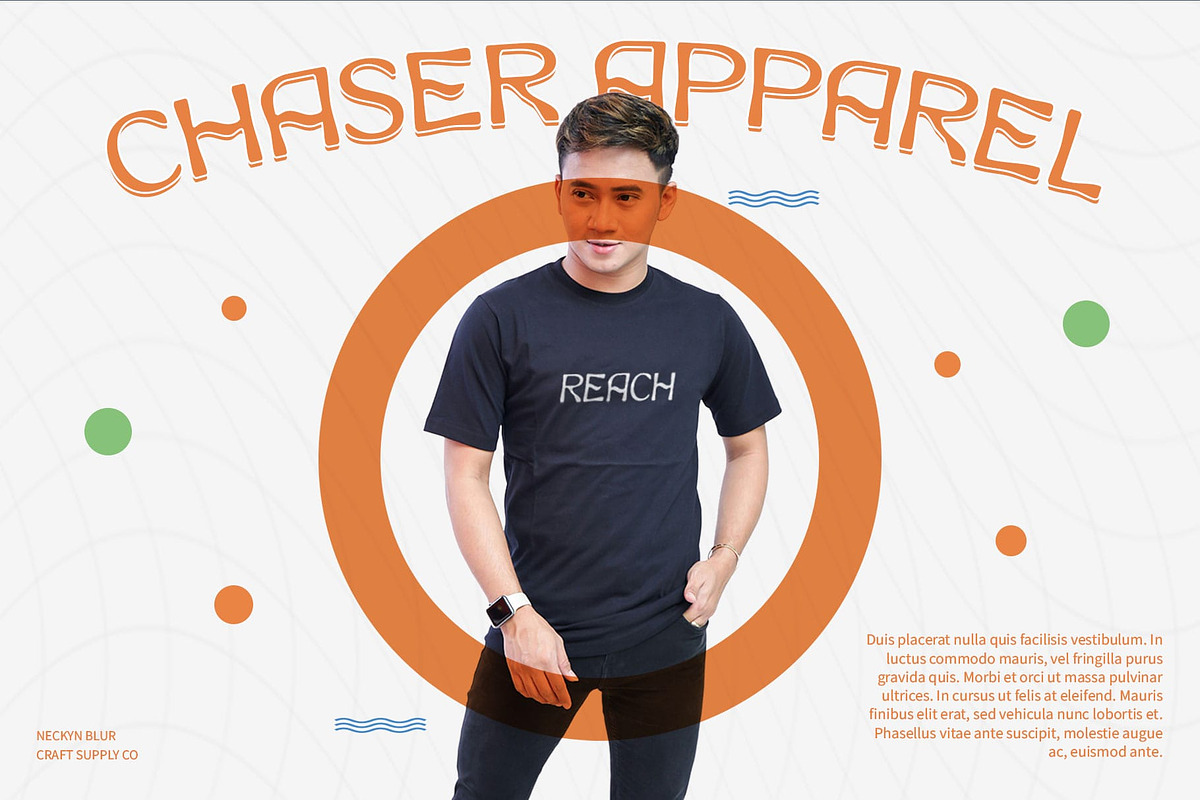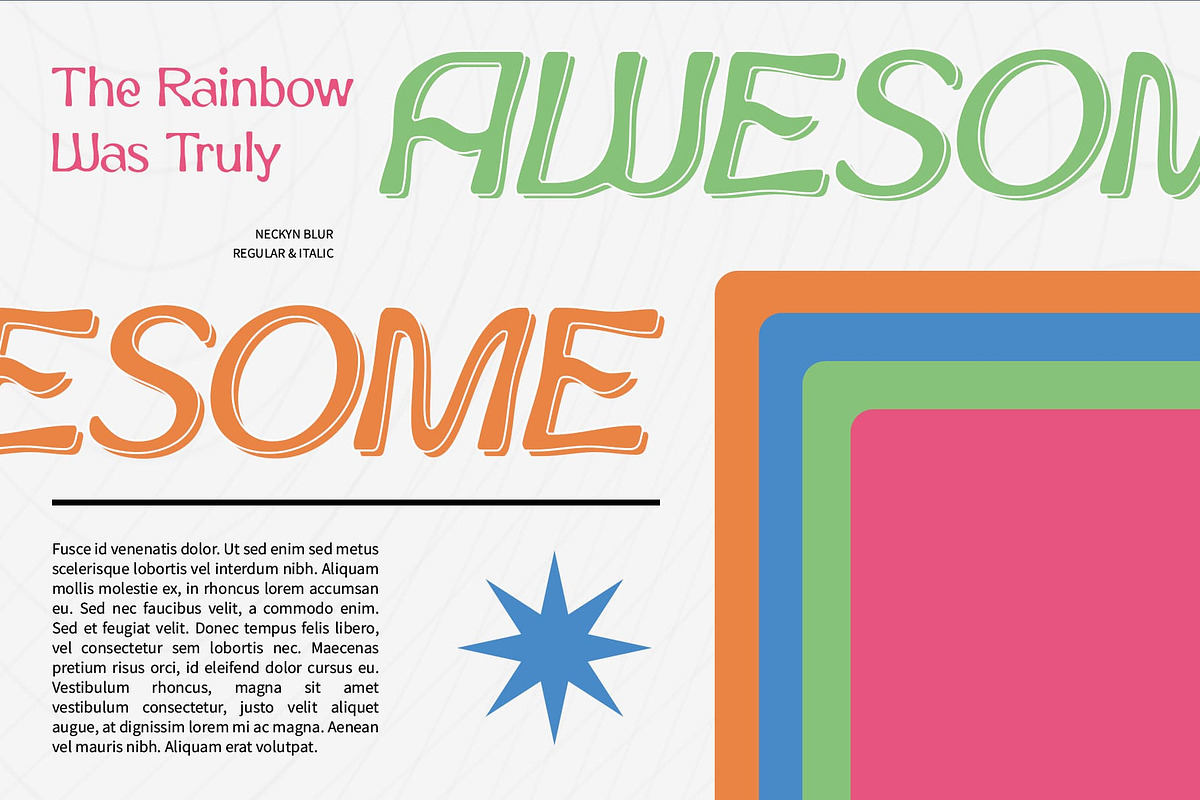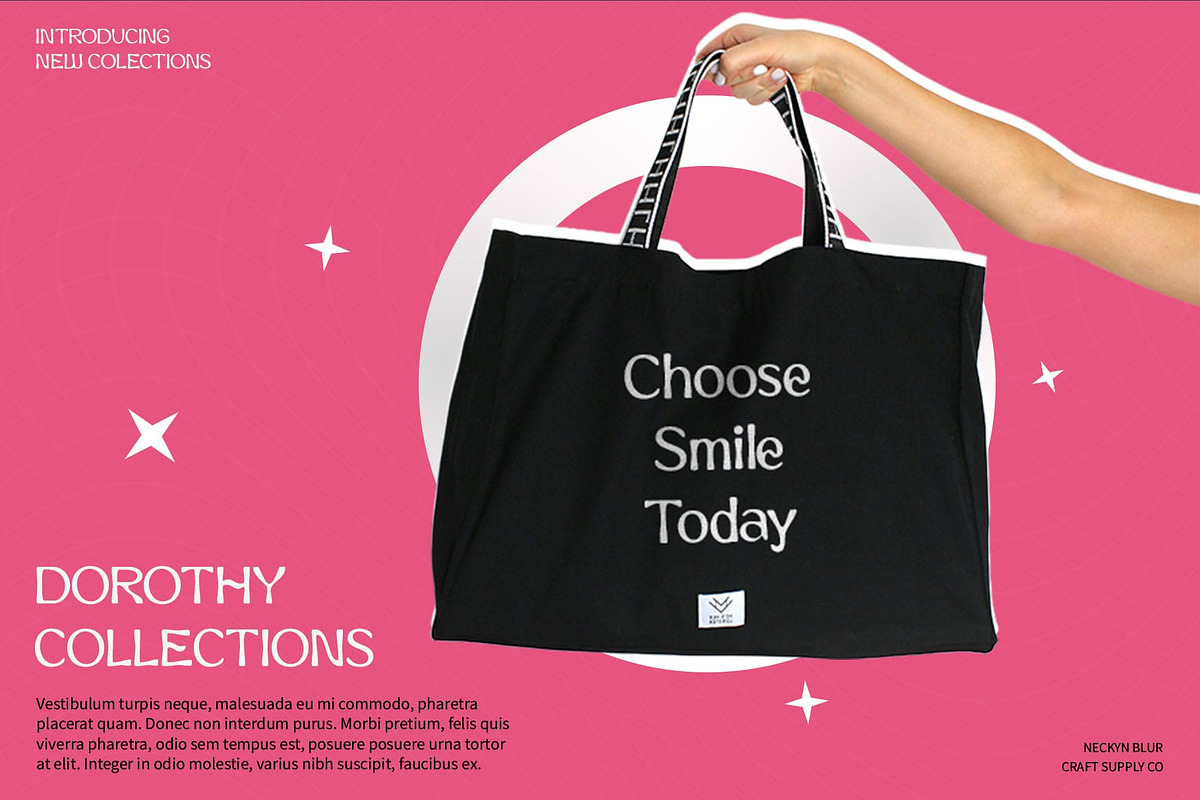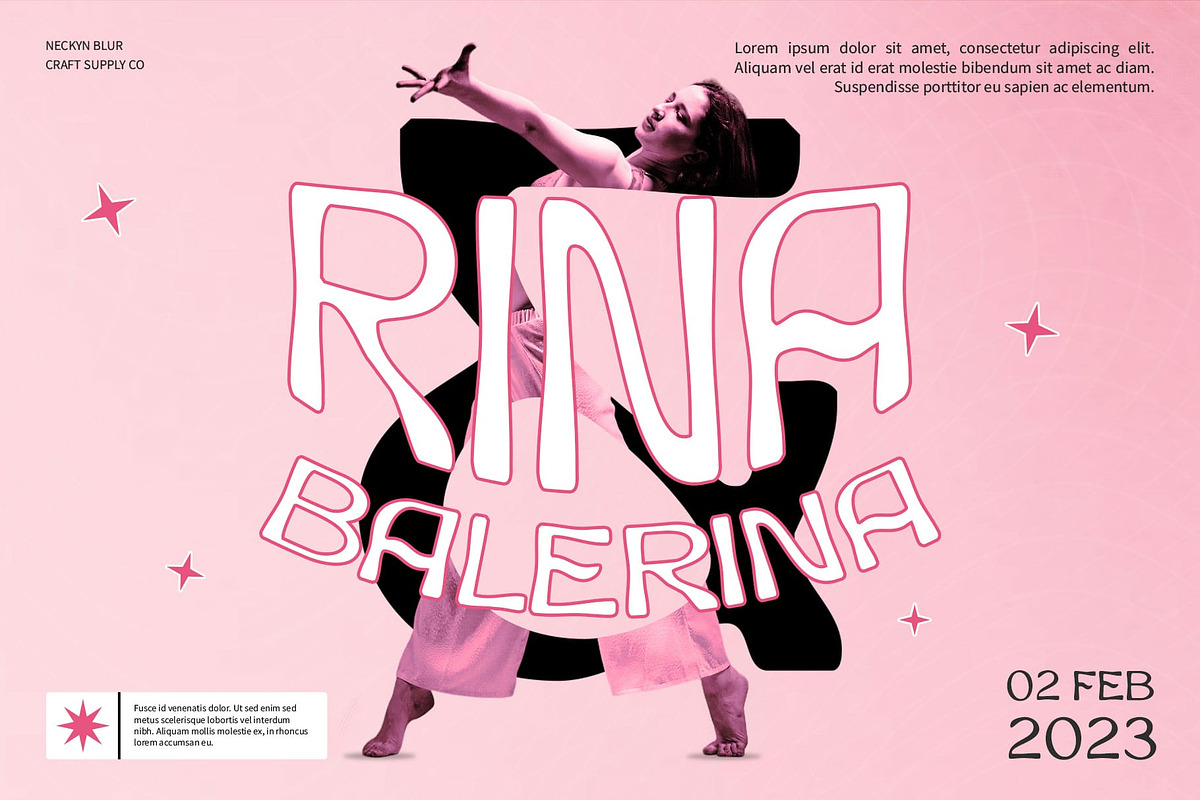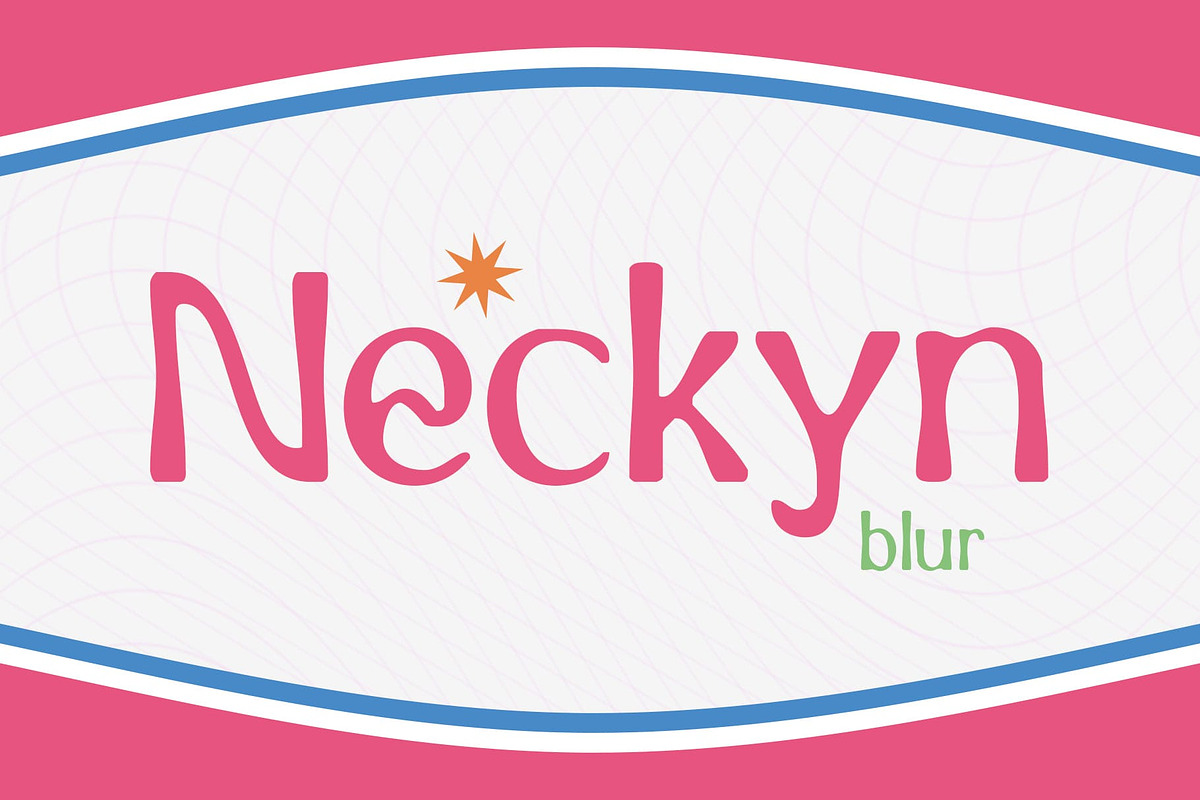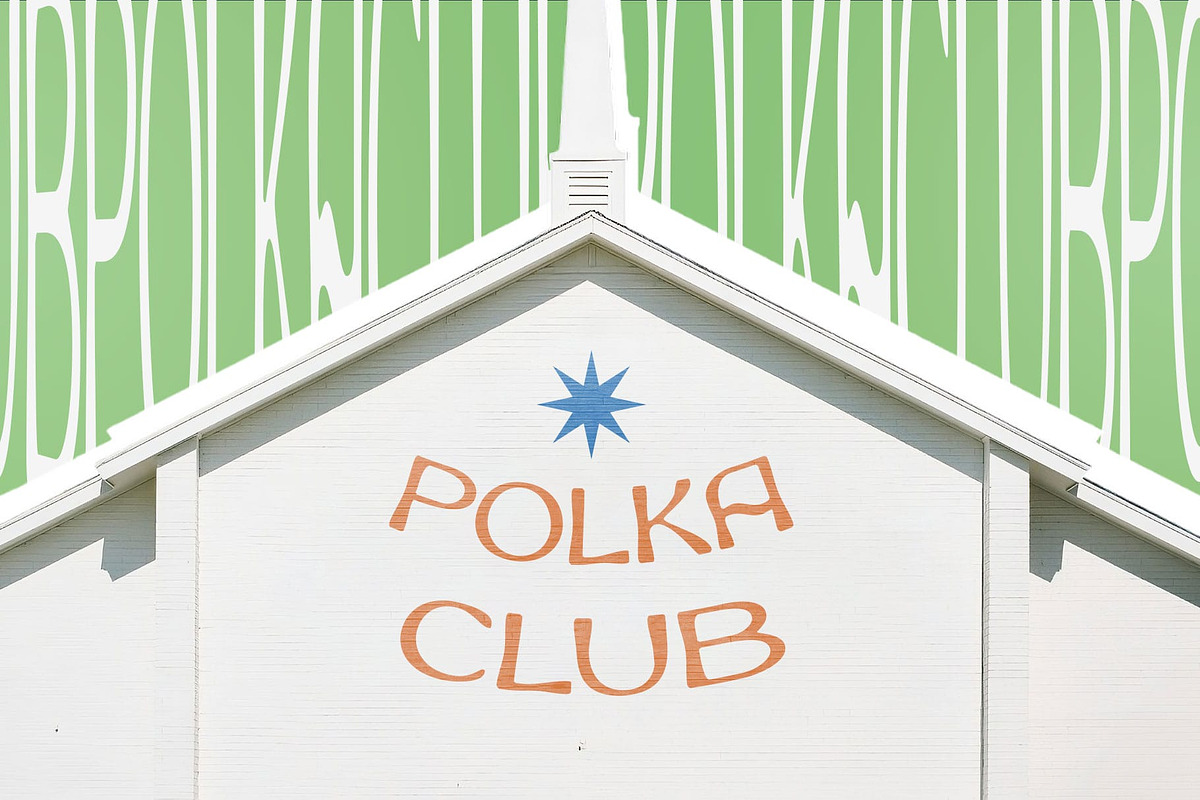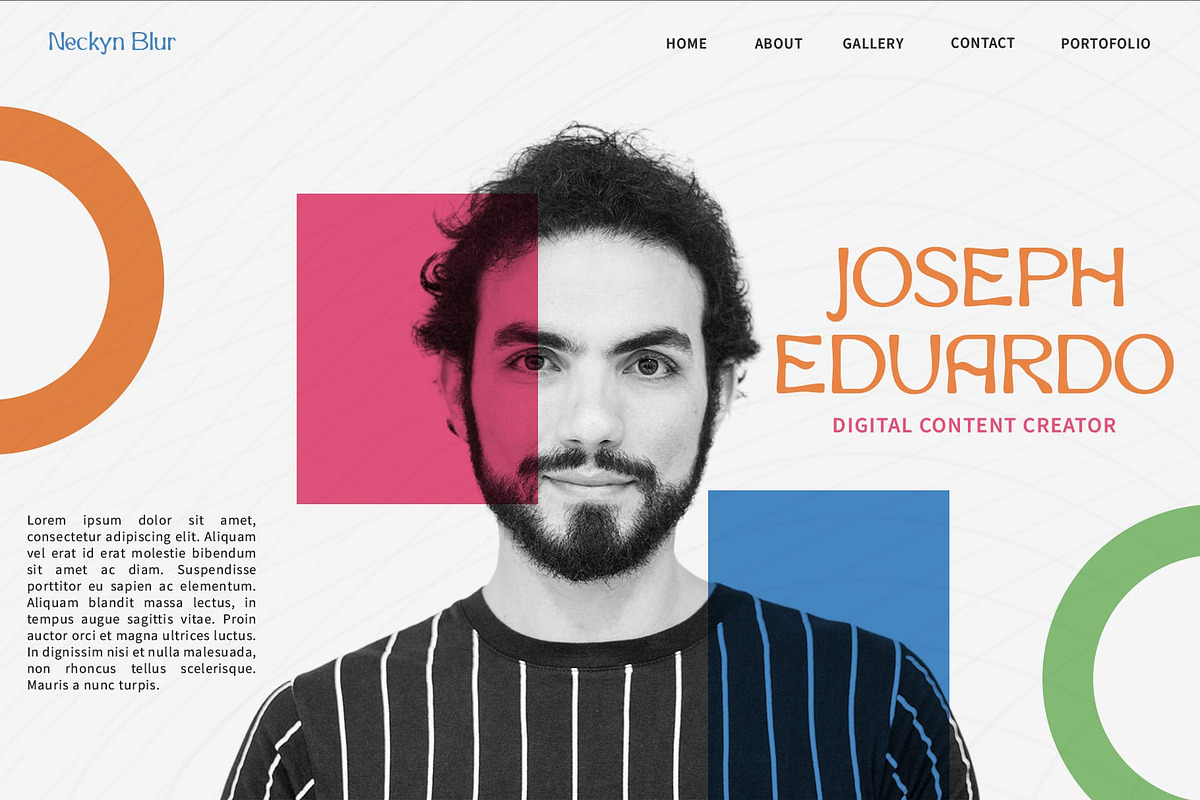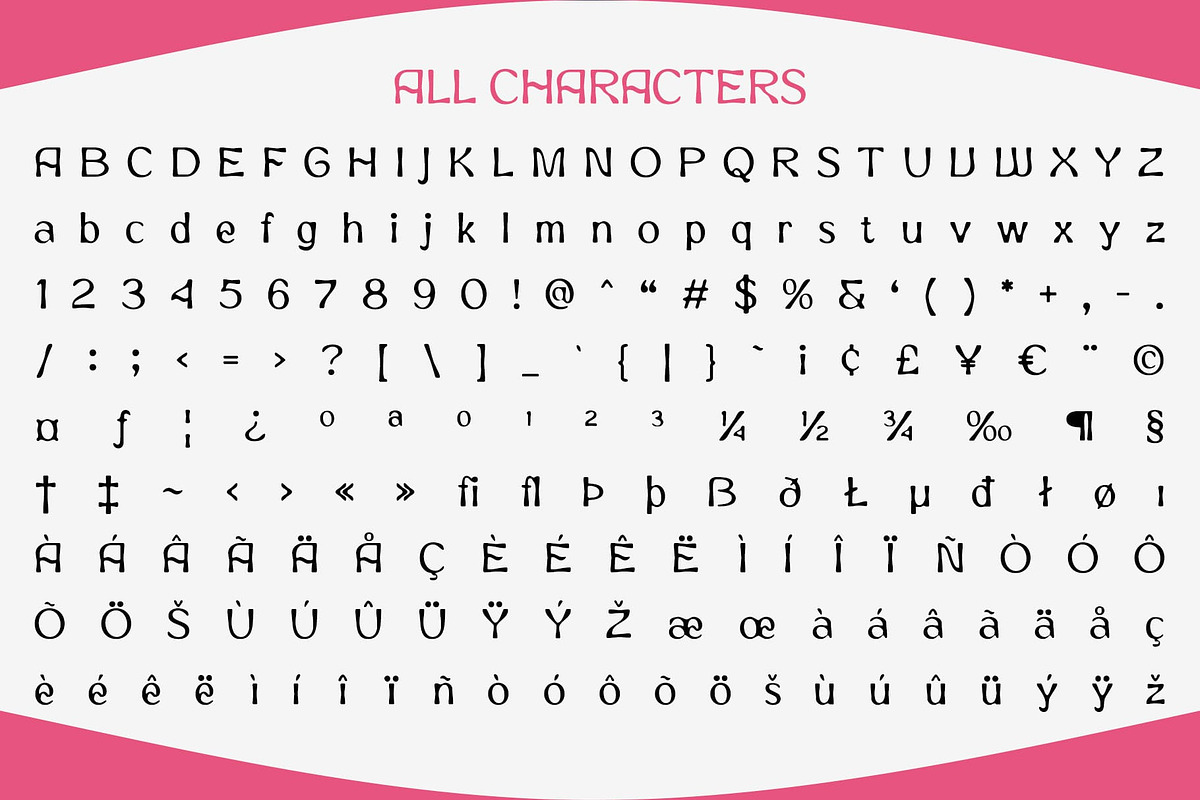
Neckyn Blur
Neckyn Blur: Blending Art Nouveau with Modern Funk
Modern Sans-Serif Font with Art Nouveau Style, Funky Feel, and Blur Effect
Neckyn Blur is a modern sans-serif font with an Art Nouveau style, funky feel, and a blur effect, typically suitable for designs that aim to combine a classic yet vibrant and unique look. Using this font can provide an artistic and distinctive appearance to various design projects.
Perfect for Classic Yet Vibrant Designs
With its Art Nouveau style and blur effect, Neckyn Blur Font is perfect for projects that require a blend of classic elegance and modern vibrancy. Whether used in branding, packaging, or editorial design, this font adds a sense of artistic flair and sophistication to your designs.
Enhanced Artistry
Neckyn Blur Font prioritizes artistry, ensuring that your designs are both expressive and captivating. Its funky feel and blur effect create a dynamic and vibrant look that resonates with viewers, making it perfect for projects that aim to be different.
Ideal for Distinctive Projects
Whether you’re designing a wine label, creating an art gallery poster, or developing a creative advertisement, Neckyn Blur Font is the perfect choice for projects that demand a unique and artistic look. Its Art Nouveau style and funky feel ensure that your designs will always stand out and leave a lasting impression.
Add a touch of artistic flair to your designs with Neckyn Blur Font and let your creativity shine.